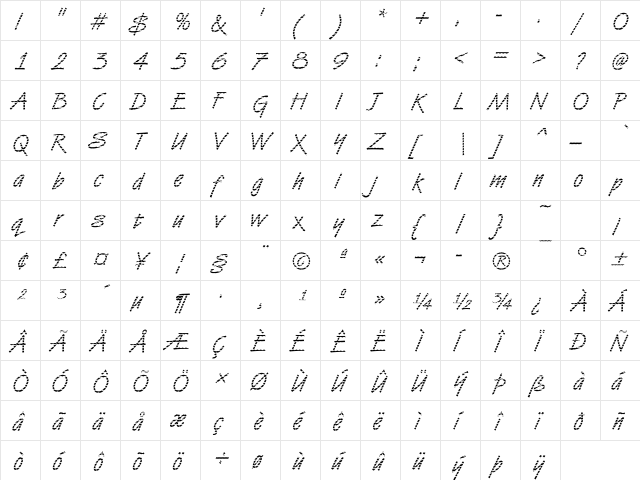
DTCVanDijkM17 Regular Font Preview
DTCVanDijkM17 Regular
DTCVanDijkM17 Regular Font Details
Design Context for DTCVanDijkM17 Typeface
DTCVanDijkM17 is a composed and adaptable typeface that performs quietly and consistently across a wide range of design contexts.